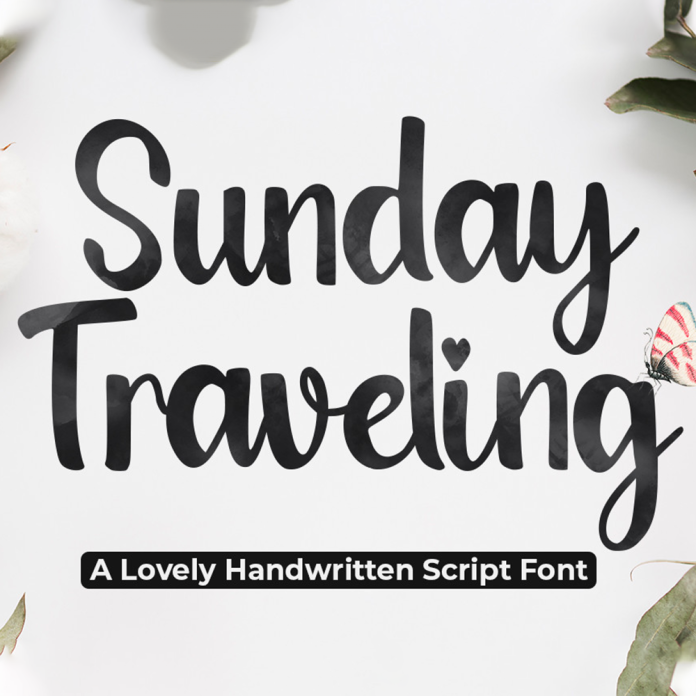
SundayTraveling font script is a whimsical and elegant typeface with a handwritten feel. It features flowing lines and decorative swirls, perfect for adding a touch of sophistication to invitations, branding, and other creative projects. Its unique style evokes a sense of wanderlust and adventure, making it ideal for travel-related designs.